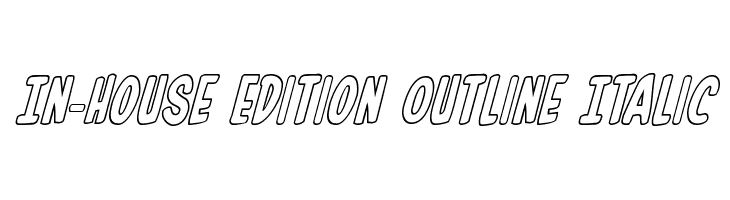
A bold, outlined, italic font with a playful and dynamic style.
A bold, condensed font with a modern and impactful style.
A bold, textured font with a mosaic-like design, perfect for creative projects.
A jagged, edgy font with a chainsaw blade aesthetic, perfect for bold designs.
A bold, cursive font with smooth, flowing lines and a dynamic appearance.
A modern, geometric font with clean lines and a dynamic slant.